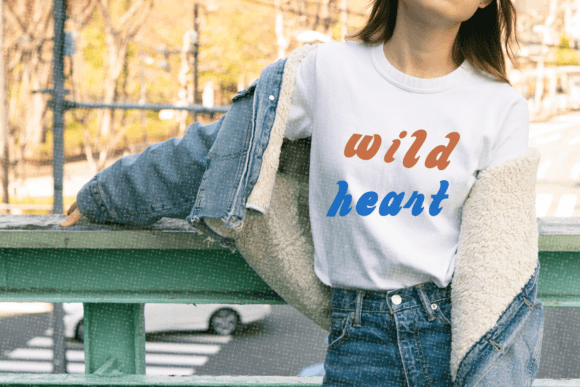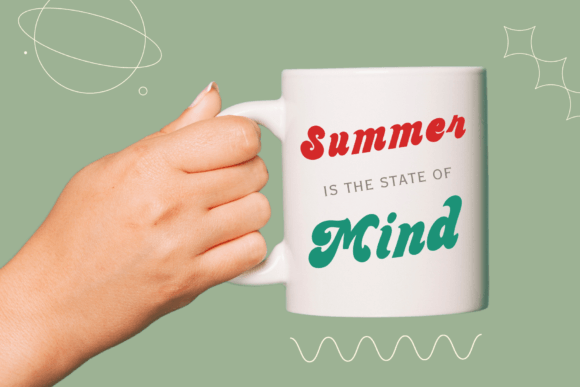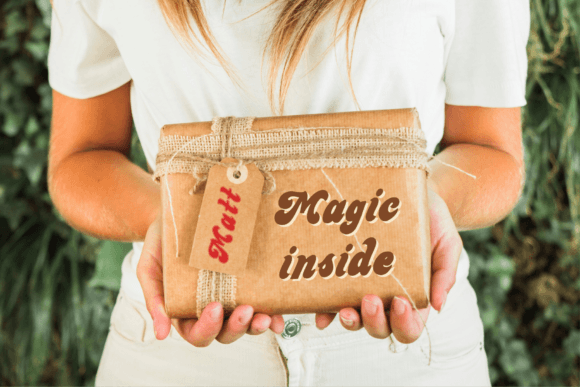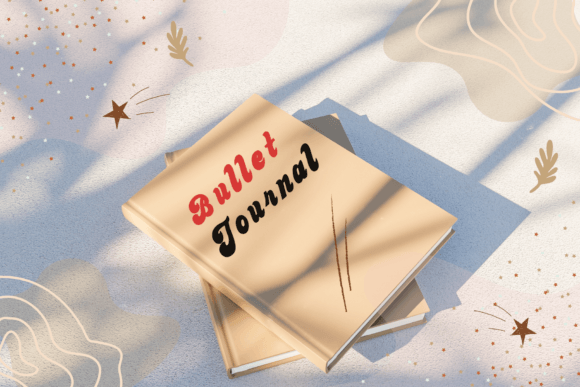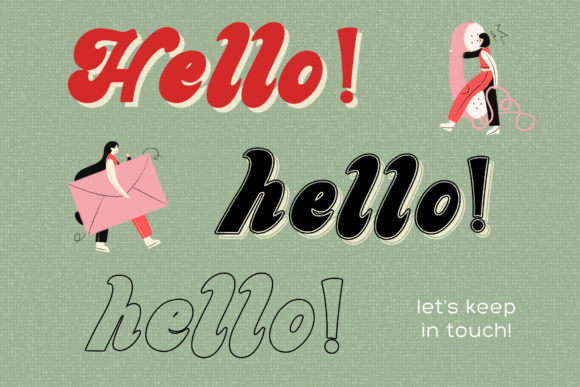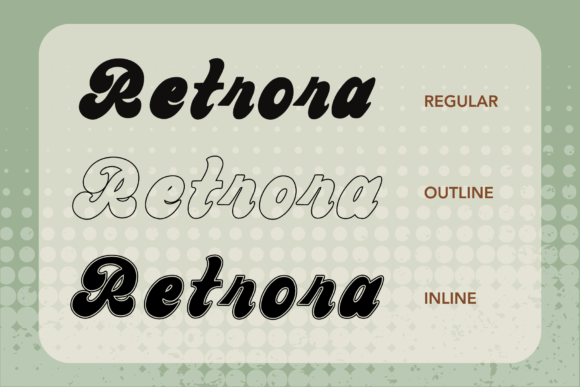
Introduction to Retrora Font
Remember that moment when you stumbled upon an old, dusty magazine, and the retro aesthetic instantly sparked a wave of creativity? The nostalgia, the charm, and the character all combined to transport you to a different era. If you’re looking to capture that same essence in your design project, you’re in luck!
The Retrora Font is a game-changer for designers seeking to add a touch of vintage flair to their work. This high-quality, retro-style display font is the perfect design resource for those who want to create a strong visual identity with a contemporary edge. With its transparent background and versatility, the Retrora Font is an ideal choice for creative projects that require a unique and eye-catching element.
Key Features of Retrora Font
- Unique characteristics, such as intricate details and subtle texture, set Retrora Font apart from other design resources.
Honest Review: Retrora Font
As a designer, I’m always on the lookout for high-quality design resources to elevate my creative projects. Recently, I stumbled upon the Retrora Font, and I’m excited to share my honest review with you.
What works well about the Retrora Font is its versatility. It comes in a range of weights and styles, making it perfect for a variety of design projects, from logos to body text. The font is also available for free download, which is a huge plus for designers on a budget.
- Range of weights and styles to choose from
However, I did encounter a few limitations with the Retrora Font. The font is not suitable for use in complex layouts, and the range of languages supported is limited.
Overall, I’m impressed with the Retrora Font, and I would definitely recommend it to designers looking for a high-quality, free design resource. While it may have some limitations, its versatility and transparency make it a great addition to any design arsenal.
Introduction to Retrora Font
Retrora Font is a high-quality design resource perfect for creative projects that require a unique and stylish touch. With its transparent background, this font is ideal for designers looking to add a touch of elegance to their work.
Tips for Getting the Most Out of Retrora Font
Use the Retrora Font in combination with a transparent background to create a stylish and modern design.
Experiment with different font sizes and styles to add depth and interest to your design.
Use the Retrora Font in conjunction with other design elements to create a cohesive and visually appealing design.
Common Use Cases for Retrora Font
The Retrora Font is perfect for:
Is the Retrora Font suitable for high-quality design projects?
Yes, the Retrora Font is designed to be a high-quality design resource. It features clean lines, elegant typography, and a wide range of characters. You can use it for various design projects, including logos, branding, and creative projects that require a sophisticated and modern look.